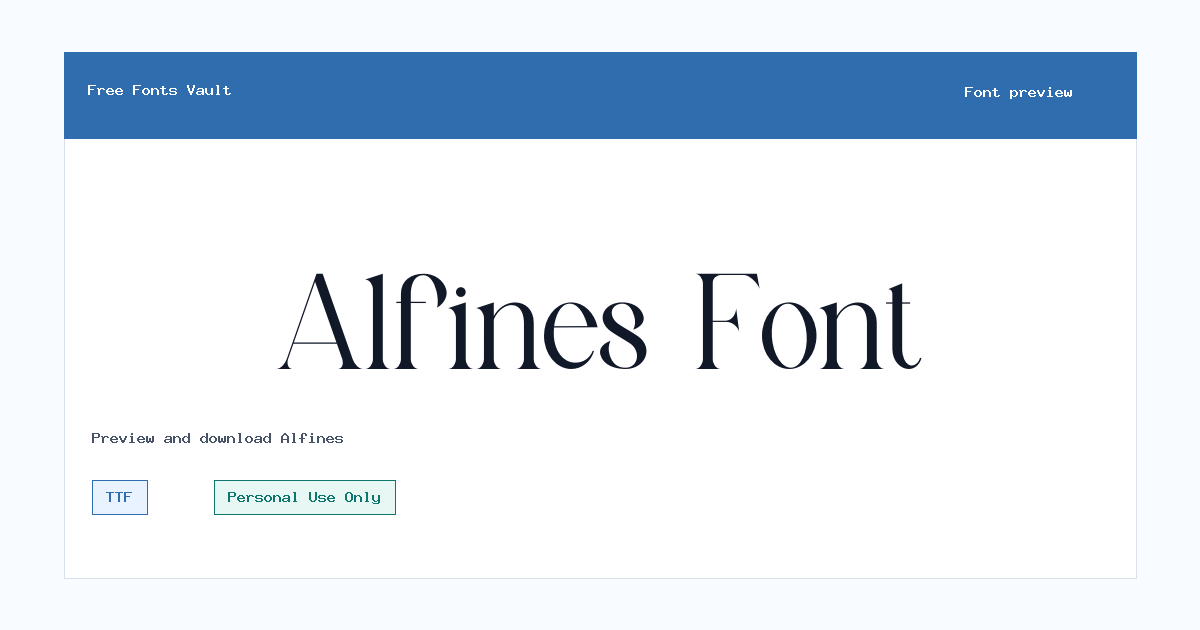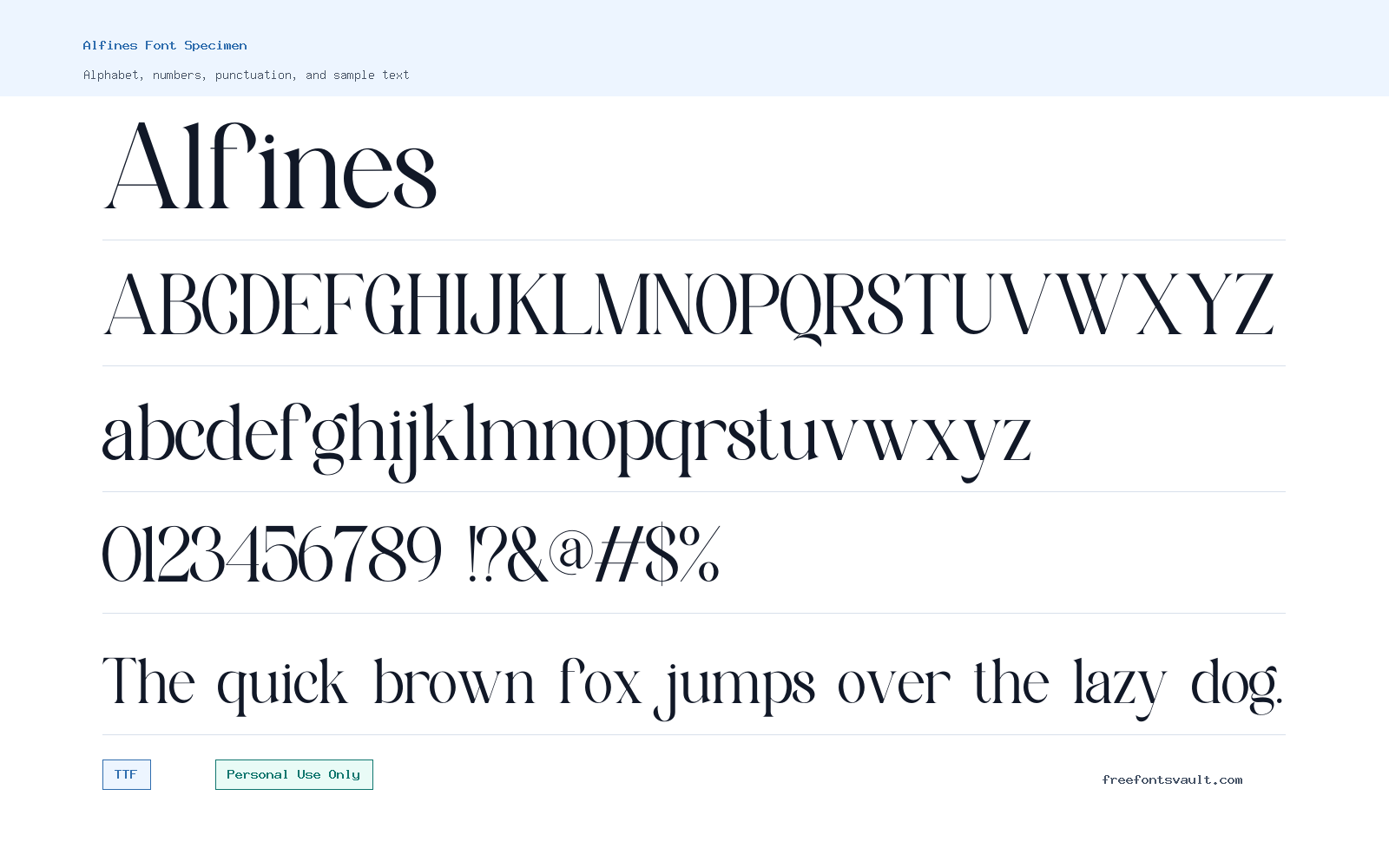
Alfines
Alfines font.
About Alfines Font
Alfines works well when you need a serif look for short pieces of text rather than long, dense reading. Use the preview field to test the exact words you plan to design with, especially names, titles, initials, numbers, punctuation, and any accented characters you need. A font can feel very different in a one-word logo mockup than it does in a longer heading, so check spacing and letter shapes at the size you expect to use.
The regular style is listed with normal styling and 400 weight, which makes it a straightforward starting point for mockups, personal invitations, mood boards, social graphics, printable drafts, and title experiments. Since no bold, italic, or extended family styles are listed, plan your layout around one main style. If you need a complete brand system, body text hierarchy, or multiple weights, pair Alfines carefully with a simple sans serif and test contrast before committing.
- Regular serif style with normal 400 weight
- Personal title designs, invitations, and display text tests
- Mood boards, social graphics, and non-commercial mockups
Is Alfines good for body text?
Alfines is better approached as a display or short-text serif unless your own preview testing shows it remains comfortable in longer passages.